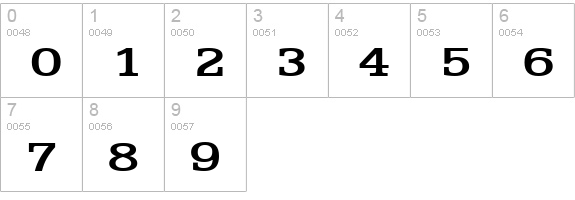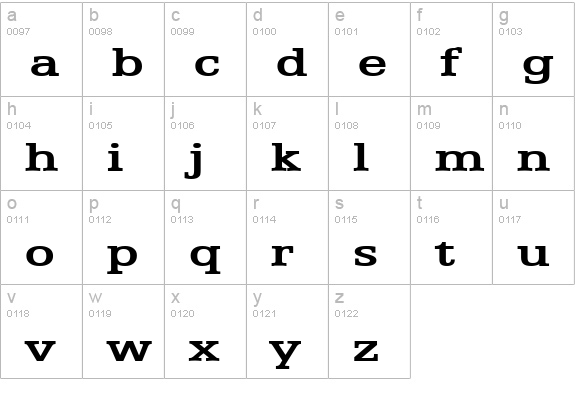
Eggo Extended Bold is a strong, high-contrast, extended-width variant in the Eggo typeface family \xE2\x80\x94 well suited to headlines, attention-grabbing titles, and strong calls-to-action.
Introducing Eggo Extended Bold, a captivating and versatile font that effortlessly commands attention. With its bold and dynamic letterforms, this typeface exudes a sense of strength and confidence, making it ideal for headlines, logos, posters, and any design project that requires a powerful visual impact. Eggo Extended Bold stands out from the crowd with its unique blend of thick strokes and sharp edges, creating a modern and contemporary feel. Its extended proportions provide a sense of spaciousness, ensuring legibility even at smaller sizes. Whether used in print or on digital platforms, this font guarantees readability and clarity. But what sets Eggo Extended Bold apart is not only its striking design but also its accessibility. It is freely available to download at FontsMarket.com, allowing designers, creatives, and enthusiasts to easily incorporate this exceptional typeface into their projects without any hassle or cost. This font empowers designers to unleash their creativity and transform their visions into reality, without limitations. Eggo Extended Bold is a versatile tool that allows for endless possibilities. Its bold and commanding presence effortlessly captures attention and leaves a lasting impression. Whether used for branding, advertising, or editorial purposes, this font is sure to make a statement and elevate any design to new heights. So, why settle for ordinary when you can embrace the extraordinary? Download Eggo Extended Bold today at FontsMarket.com and experience the power of this incredible font, free of charge. Unleash your creativity and let Eggo Extended Bold be the bold statement your designs have been waiting for.